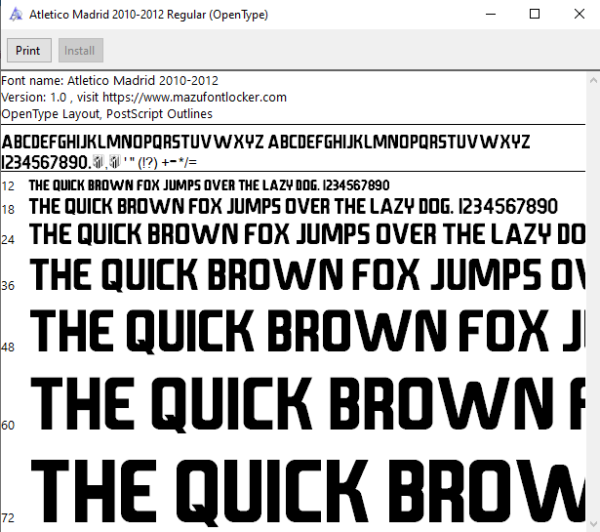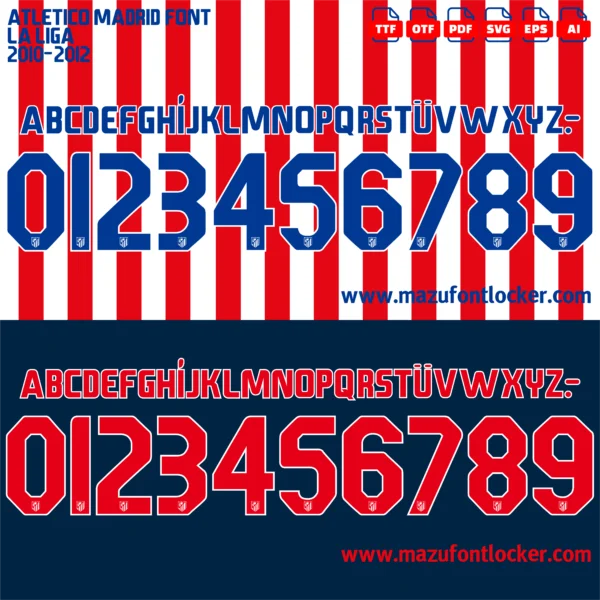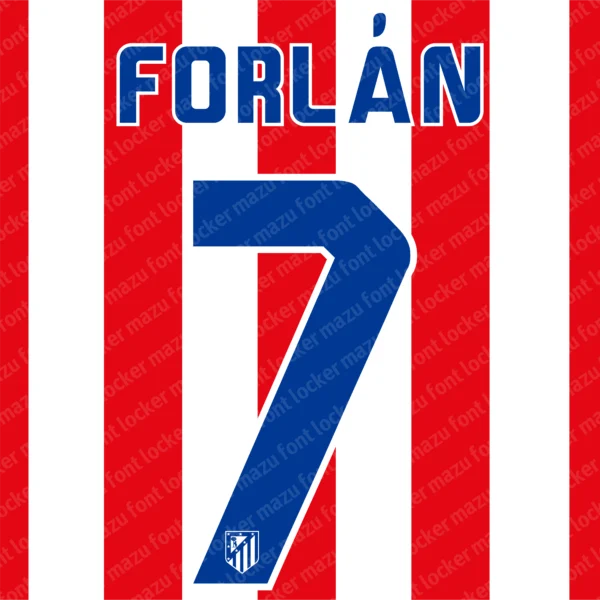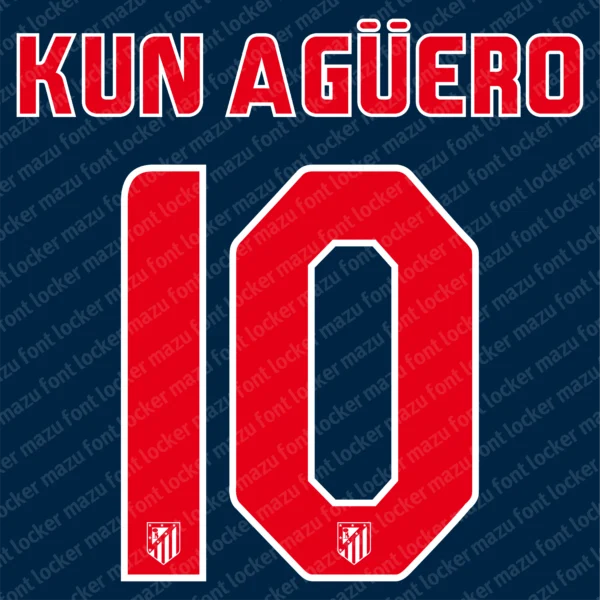
Atletico Madrid 2010-2012 Font Vector – Epic Rojiblancos Red & White Masterpiece
Download the Atletico Madrid 2010-2012 Font Vector (AI, EPS, SVG, PDF, OTF, TTF) and relive the ferocious Spanish spectacle that ignited the Vicente Calderón and captivated football fans across Spain and Europe, featuring the iconic match lettering worn during Atletico Madrid’s unforgettable 2010-2012 campaign as they rose with grit, discipline, and warrior spirit to challenge the giants and claim major trophies.
This premium font captures the bold, intense, and championship-driven typography that perfectly embodies the spirit of Los Colchoneros — delivering pure Spanish fire, relentless ambition, unbreakable resilience, tactical brilliance, and the passionate football culture that transformed Atletico Madrid into one of Europe’s most feared and celebrated football giants.
Atlético Madrid 2010-2012 Font Vector – Stunning Colchoneros Typeface
The Atlético Madrid 2010-2012 Font Vector is a premium typeface that accurately recreates the official match lettering worn by Atlético de Madrid during the 2010-2012 seasons. This high-quality vector font kit captures the bold, determined, and passionate typography that marked an important era of resurgence for the club.
Designed for professional designers, football enthusiasts, and Atlético Madrid supporters, the Atlético Madrid 2010-2012 Font Vector delivers authentic results for jersey mockups, fan merchandise, retro football projects, social media graphics, and matchday designs. It perfectly complements the iconic red-and-white striped kits worn by Los Colchoneros throughout the 2010-2012 campaigns.
Why Choose Atlético Madrid 2010-2012 Font Vector
This font stands out thanks to its faithful recreation of the official shirt lettering used by Atlético Madrid during the 2010-2012 seasons. Every character has been carefully crafted to match the authentic player names and numbers seen on the pitch. Whether you are designing realistic kit concepts or creating football-themed artwork, the Atlético Madrid 2010-2012 Font Vector delivers professional-quality authenticity.
The letterforms feature a clean, athletic, and gritty design that reflects Atlético Madrid’s fighting spirit and “never give up” mentality. The balanced proportions and sharp detailing provide excellent readability while maintaining the club’s proud Madrid identity.
The numerals are bold, modern, and highly recognizable, closely matching the official squad numbers used throughout the 2010-2012 period. The vector format ensures perfect scalability for both digital and print applications.
• Complete uppercase A–Z and numbers 0–9 in authentic Atlético Madrid 2010-2012 style
• Special Atlético Madrid logo glyph – Press the “:” (Colon mark) symbol to insert the logo
• Includes accurate crest glyph positioning for realistic jersey customization
Atlético Madrid 2010-2012 Era
The 2010-2012 period was a time of resurgence for Atlético Madrid. Under strong leadership and with key players like Diego Forlán, Sergio Agüero, and Radamel Falcao, the club achieved notable success in La Liga and European competitions, including winning the 2010 Europa League and reaching the 2012 final.
This era laid the foundation for the club’s later dominance and showcased the unbreakable Colchoneros spirit.
The Atlético Madrid 2010-2012 Font Vector is an independently designed typeface package created to replicate the official shirt lettering style used by Atlético Madrid during the 2010-2012 seasons. It is ideal for retro football projects, jersey customization, fan artwork, historical recreations, and sports design work.